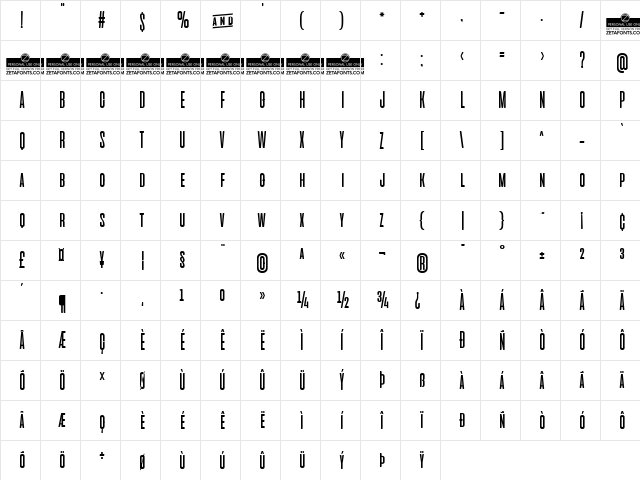
aliens and cows Regular
| Foundry | Studio Kmzero |
| Designer | Francesco Canovaro |
Design Context for aliens and cows Typeface
aliens and cows is a composed and adaptable typeface that performs quietly and consistently across a wide range of design contexts.